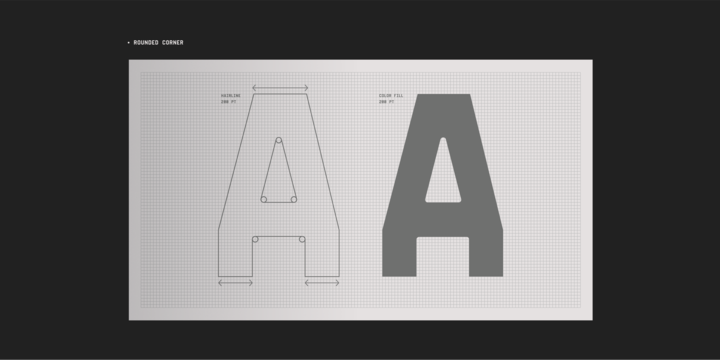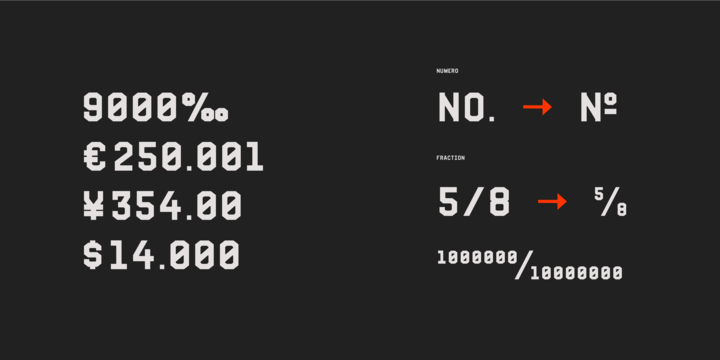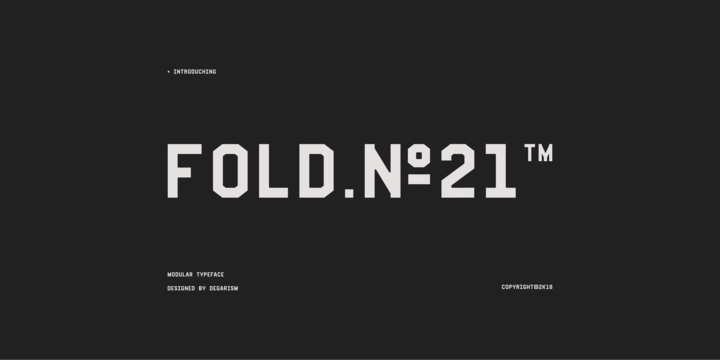
Fold No.21 Mono
Fold No.21 is a monospaced sans-serif typeface, With Strong Character inspired by Machine technology and airports signage, Available in Single weight supports Standard Western and Latin Extended characters, offers you plenty of choices for many different uses.